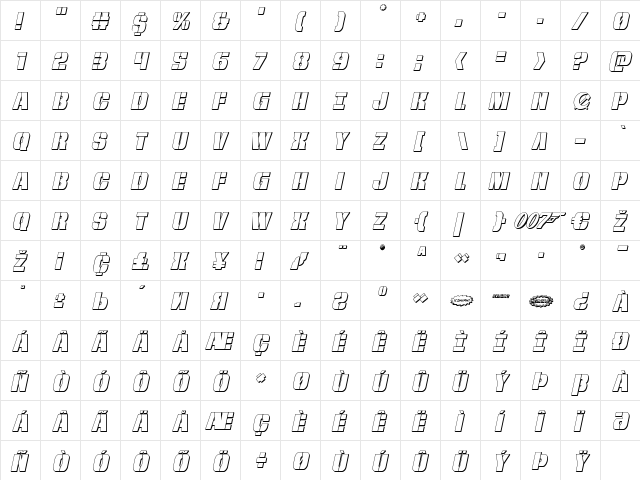
From BOND With Love 3D Italic Italic
Design Context for From BOND With Love 3D Italic Typeface
From BOND With Love 3D Italic is a composed and adaptable typeface that performs quietly and consistently across a wide range of design contexts. The slanted form adds forward momentum and visual energy.
Pro Tip: Try From BOND With Love 3D Italic for annotation and caption copy alongside an upright companion — the contrast in angle creates a dynamic but ordered typographic system.